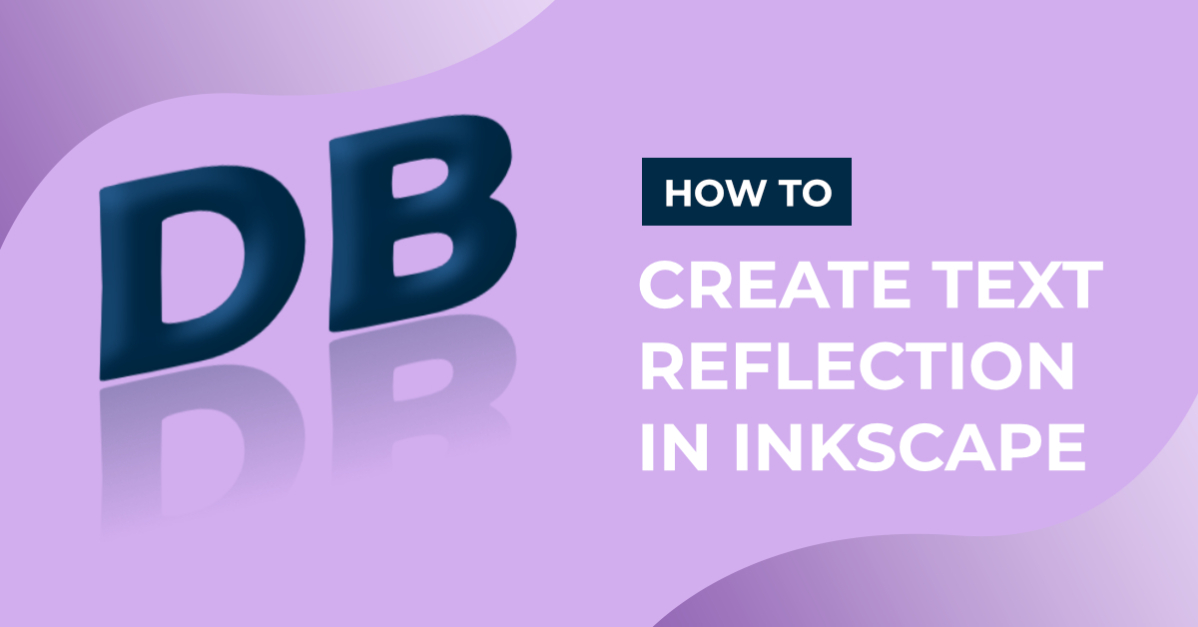
How to Create Text Reflection in Inkscape
In this tutorial, discover how to create a Text Reflection in Inkscape and elevate your design.
We have a great tutorial for you today on how to create text reflection in Inkscape. Text reflection simulates the effect of surface reflection using text. This is particularly useful across advertising and projects where you want the text to stand out.
Mockup text reflection in Inkscape
To create our text reflection we will be using a bold display font called Bold Type. For this type of effect, look for a straightforward font. We have a brilliant collection of Modern Sans Serif fonts to choose from on Design Bundles.
Step 1 - Add and Edit the Text
Open Inkscape then click on the icon Create and edit text objects on the left side panel. Click anywhere on the document and begin typing. For a result with more impact, use caps for each letter.
Then, at the top left toolbar, you will find the Select Font Family box. You can type in the name of your font or click on the drop down menu. Choose your font to apply.
Add text in Inkscape
Text can be resized using the sizing handles. First, select the icon Select and transform objects (or the Move Tool) top left toolbar. Click on the text object then hold Ctrl and click + drag a corner handle in or out to resize.
Adjust sizing of text in Inkscape
Step 2 - Duplicate then Flip the Text
To create the reflection, we need to duplicate then flip the text.
Right click the text and select Duplicate. On the top toolbar, you will see little arrows. Click on the one that says Flip selected objects vertically. Now, hold Ctrl then click + drag the duplicate down.
Drag it down just below the original text object.
Duplicate then flip text in Inkscape
Step 3 - Add a Gradient to Text Object
Next, we added a linear gradient to the duplicated text object. We want the reflection to fade from the bottom of the text. So the gradient was drawn from the top down on the duplicate.
Add gradient in Inkscape
Adjust the gradient by clicking + dragging the top node up. This will extend the gradient and give a more faded look. We also adjusted the bottom node upwards.
Edit gradient on text in Inkscape
Shift the duplicate reflection down a bit using the direction keys on your keyboard.
Adjust distance of text in Inkscape
Step 4 - Complete the Text Reflection
We are just about done creating the text reflection in Inkscape.
Change the Text Color
Let’s change the color for both the text and gradient of the reflective text. First, select the top text object, then choose a color from the Color Palette. The Color Palette can be found at the bottom of the screen.
Change color of text in Inkscape
Change the top gradient color to the same color as the top text. In our case, this was pink. Make the bottom half of the gradient black. We will be adding a black background, so the bottom gradient will fade into it.
Adjust text gradient in Inkscape
Add a Background
Add a background by going to the left side toolbar. Now click on the icon Create rectangles and squares. Next, click + drag out a rectangle to completely cover the both text objects.
Create a rectangle in Inkscape
Use the Color Palette to change the rectangle square to black.
Move Rectangle Down
Now, go to the top toolbar and click on the icon Lower selection to bottom (End). This will place the rectangle beneath the text objects.
Move rectangle to the bottom layer
You can edit the text reflection further until you are happy with the result. You can also group the objects to make them easier to work with.
Step 5 - Export Text Reflection
The final step is to export the image. You may want to export only the background and text. To do this, be sure to select all of the objects. Now, go to File > Export PNG Image. On the right hand side a new window will open.
The Selection tab should be highlighted. This means that only the selected items will be exported. Click on the Export As icon and choose a location to save to. Then, click on Export.
Export as selection in Inkscape
Here is our final result.
How to create text reflection in Inkscape
See how easy it was to create text reflection in Inkscape? Change it up by using contrasting colors and backgrounds. We hope that this tutorial inspires you to get creative with text in your projects.